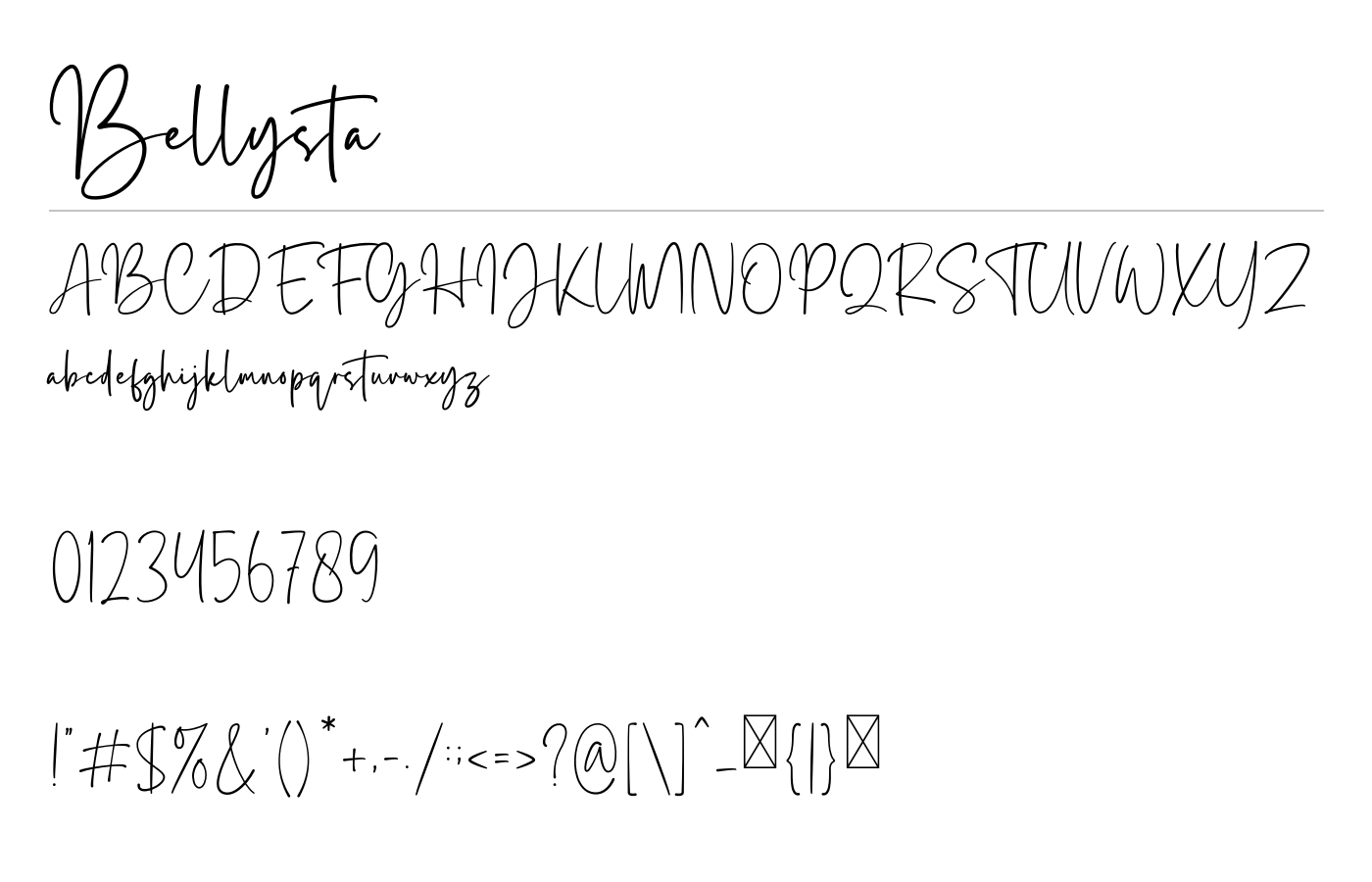
Bellysta is a delicate, hand-drawn script font with tall, slender letterforms that convey a casual yet elegant feel. Its thin strokes and airy spacing give it a light, modern personality, making it perfect for creative branding, invitations, and stylish headlines that want to express a personal, approachable touch. This font shines in projects where a whimsical, handwritten look is desired.
Bellysta Font
About Bellysta Font
| Font family | Bellysta Font |